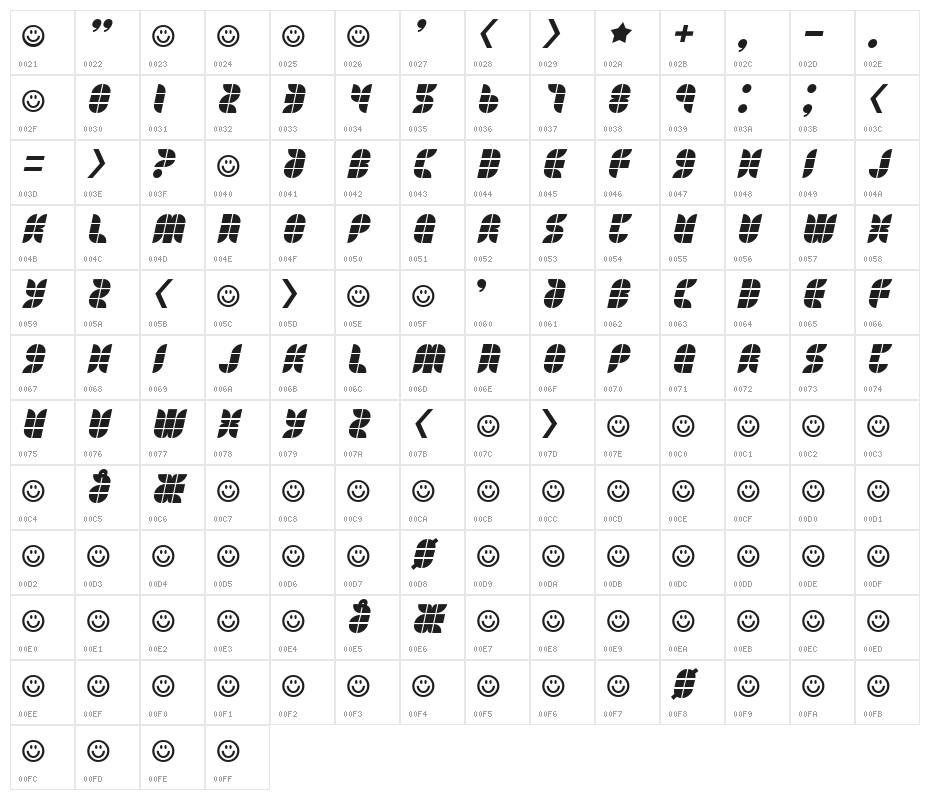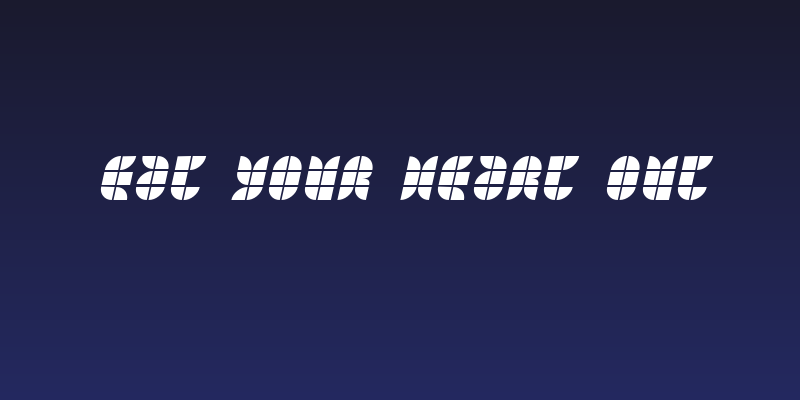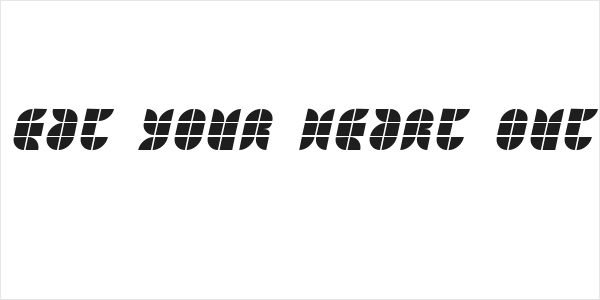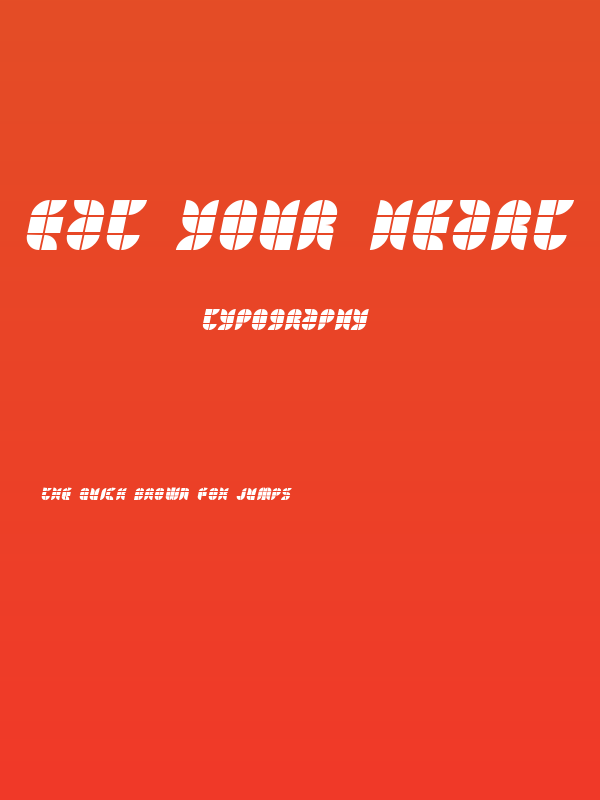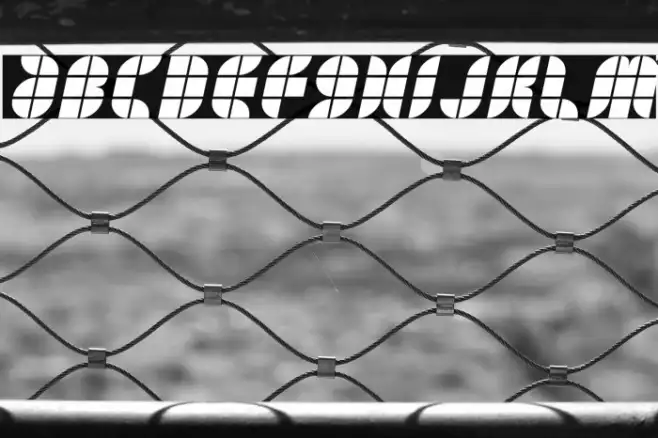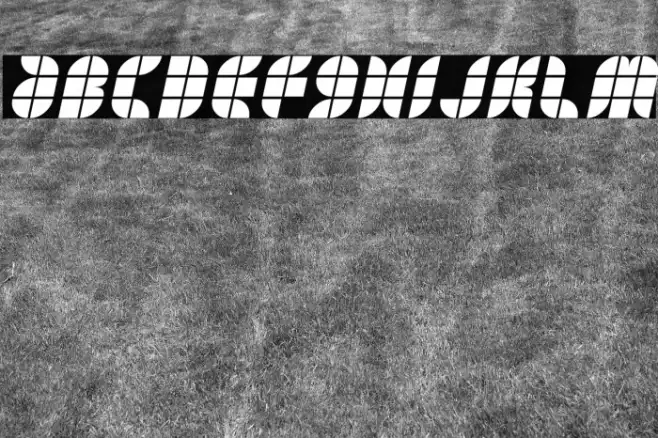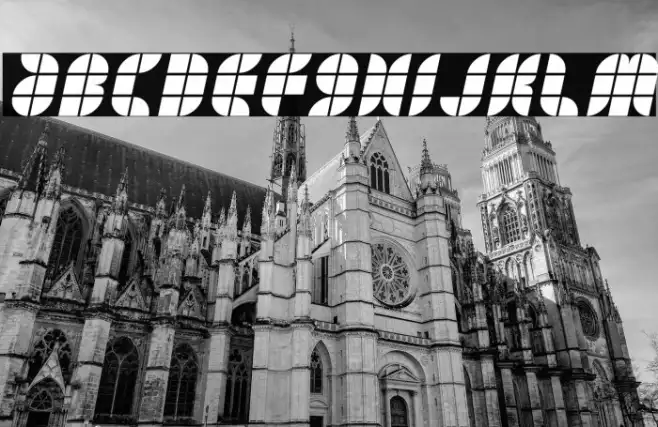
Eat your heart out Font
Eat your heart out Description
This font features a bold, geometric design with a unique segmented style. Each character is composed of distinct, block-like sections that create a modern and futuristic appearance. The letters and numbers are uniform in width, contributing to a cohesive and structured look. The font's playful yet sophisticated design makes it stand out, with its high contrast and sharp angles. Special characters maintain the same segmented style, ensuring consistency throughout. This font is ideal for projects that require a bold statement and a modern aesthetic.